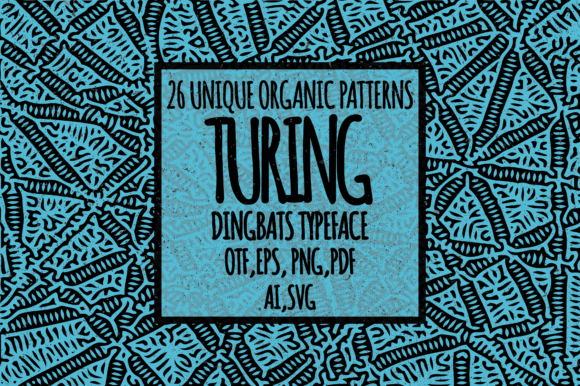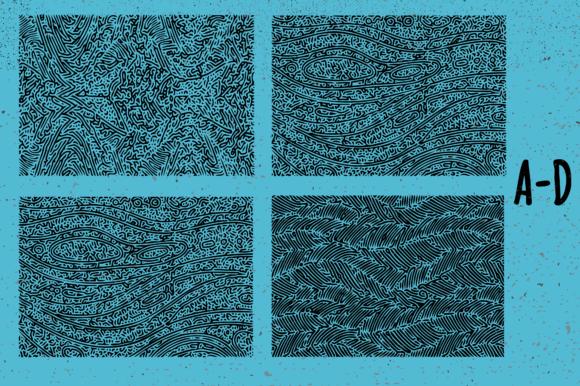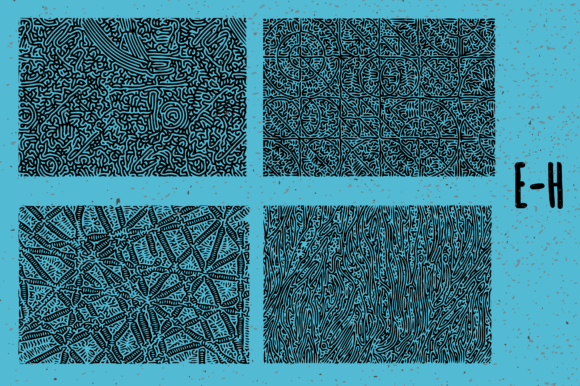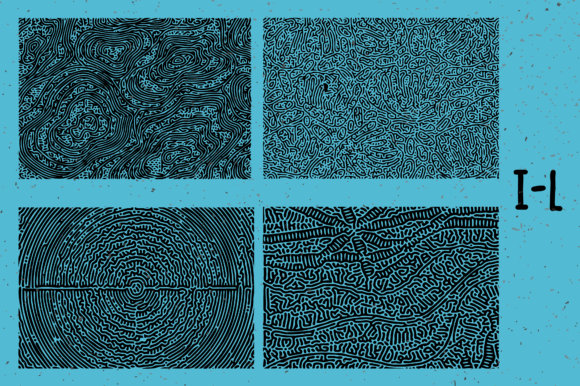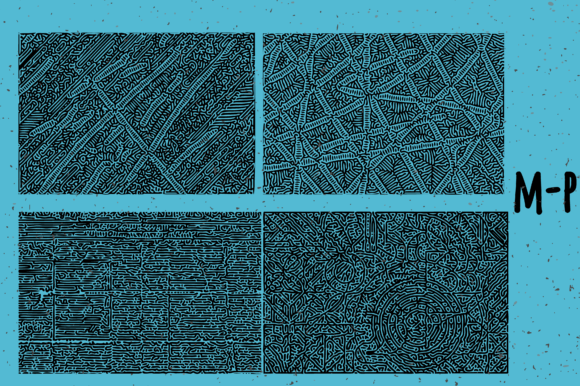
About Turing Font
Turing is a fantastic and playful dingbats font that adds a cool and fun element to a wide range of projects. With its unique design, this font is sure to make your creative ideas stand out. Whether you’re working on digital designs, print materials, or crafts, Turing is a great addition to your font collection.
The versatility of Turing lies in its ability to be matched with a variety of projects. Whether you’re designing a logo, creating social media graphics, making invitations, or working on other creative endeavors, Turing offers a wide range of possibilities.
The charm of Turing is evident in its quirky and imaginative glyphs. The symbols in this dingbats font feature playful elements such as doodles, icons, and whimsical illustrations. These creative characters can bring a sense of joy and whimsy to your designs, making them more engaging and appealing to viewers.
To use Turing, simply type the corresponding letters or numbers to generate the desired glyphs. Experiment with different combinations and explore the various symbols to create captivating compositions. The fun and playful nature of Turing allows you to use it in both decorative and functional ways, giving your projects a distinct and enjoyable flair.
Whether you’re working on branding, marketing materials, stationery, or any other project that could benefit from a touch of creativity and fun, Turing is a font that will make your designs stand out. Its cool and fun design captures attention and adds a delightful touch to your creative ideas.
In conclusion, Turing is a cool and fun dingbats font that can be matched to a wide range of projects. With its playful symbols and imaginative design, this font adds a unique and enjoyable element to your designs. Explore the possibilities of Turing and notice how it brings your creative ideas to life in a fun and captivating way.